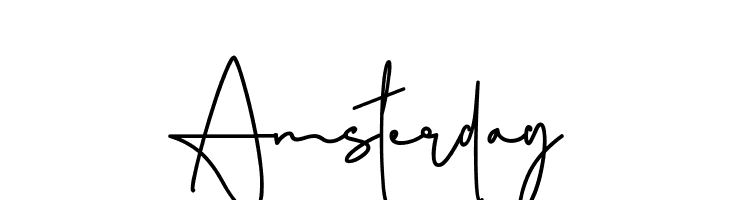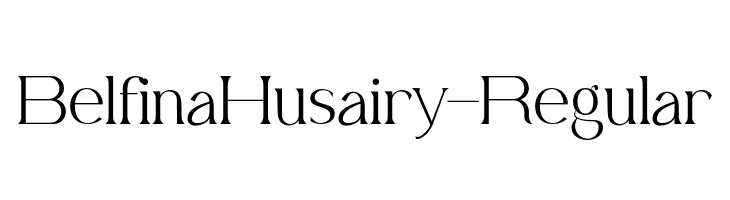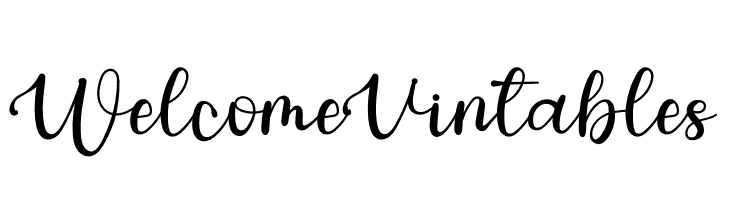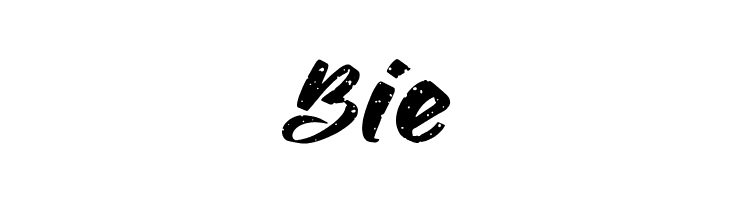
A cursive, handwritten font with elegant, flowing curves.
A sophisticated serif font with high contrast and elegant serifs.
A distressed, hand-drawn font with a playful, nostalgic style.
A pixelated, monospaced font with a retro digital aesthetic.
A bold, italic font with high contrast and dynamic style.
An elegant, flowing script font with intricate swashes.
A casual, handwritten font with playful, flowing strokes.
A bold, decorative font with swirling embellishments and artistic flair.
A sleek, modern, and italicized font with thin strokes and a condensed style.
A modern, geometric font with bold, rounded shapes and consistent stroke widths.